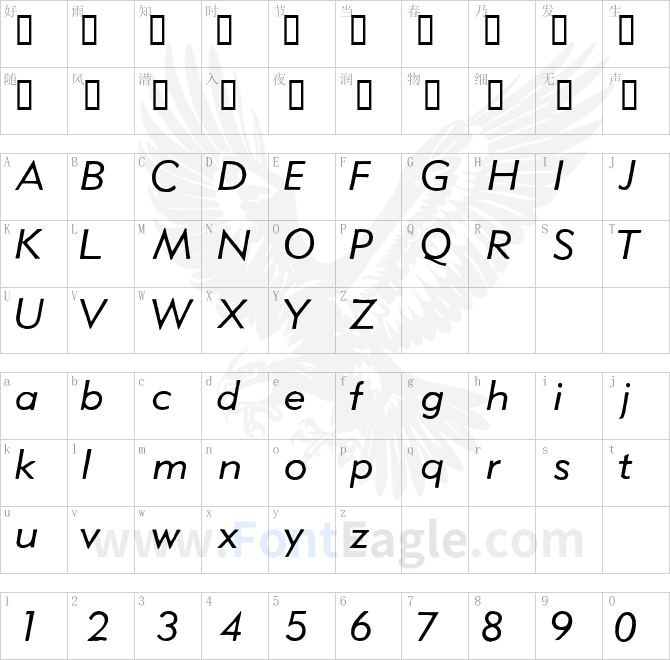
- Font name:Metro Lite Oblique
- Font Subfamily:HPLHS
- Font Subfamily ID:Macromedia Fontographer 4.1.4 Metro Lite Oblique HPLHS
- Font Full Name:Metro Lite Oblique HPLHS
- Font Version:Macromedia Fontographer 4.1.4 10/9/02
- Postscript:MetroLiteObliqueHPLHS
- Font Copyright:©2002 by Andrew Leman. Revived from the Linotype catalog exclusively for the H.P. Lovecraft Historical Society.